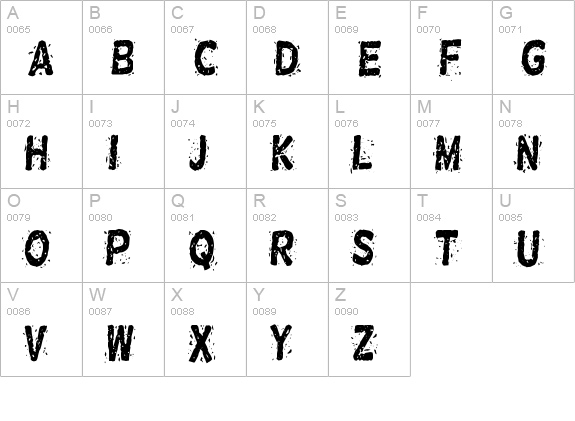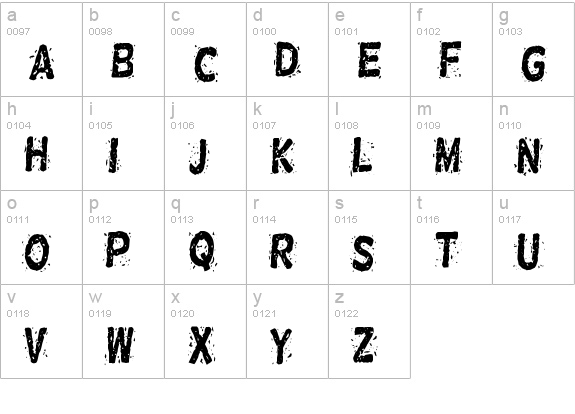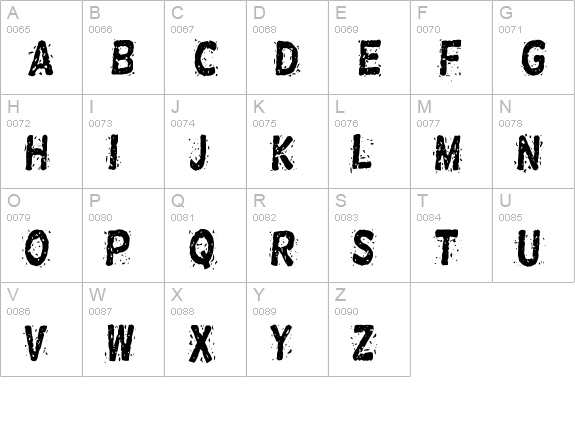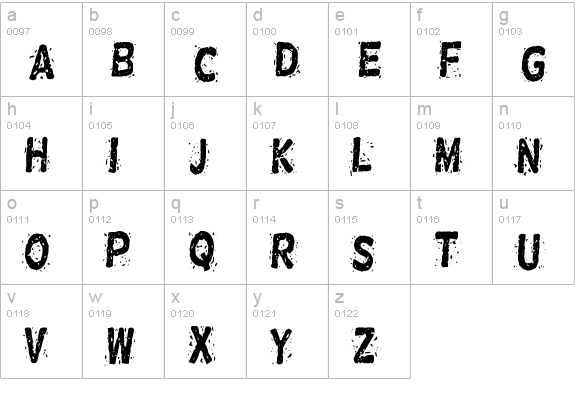
Nervous Rex Font Details
Nervous Rex font is a quirky and playful typeface that exudes a sense of fun and excitement. With its unique blend of sharp edges and curvy lines, this font is perfect for adding a touch of whimsy to any project. Whether you're creating a poster, logo, or social media graphic, Nervous Rex will make your text stand out from the crowd. The best part? Nervous Rex font is completely free to download at FontsMarket.com. So go ahead and add this charming font to your collection today and let your creativity run wild!